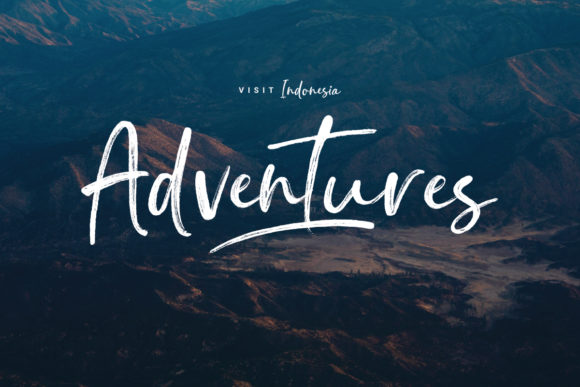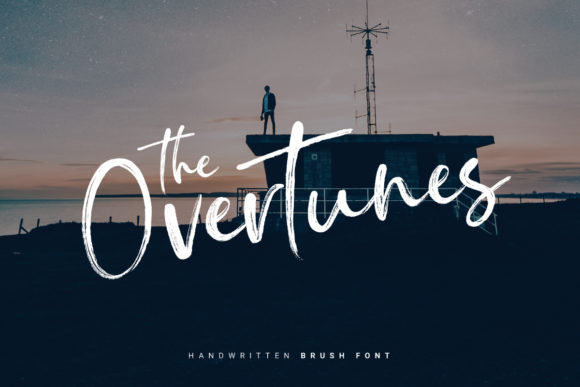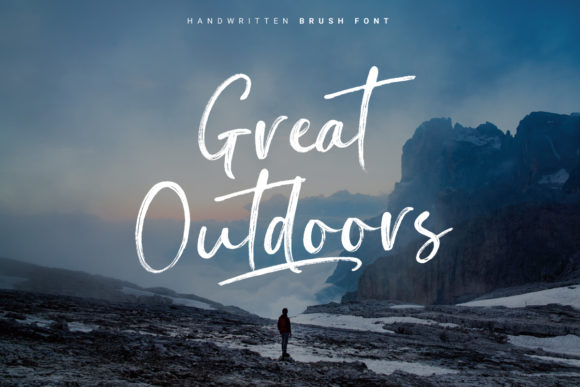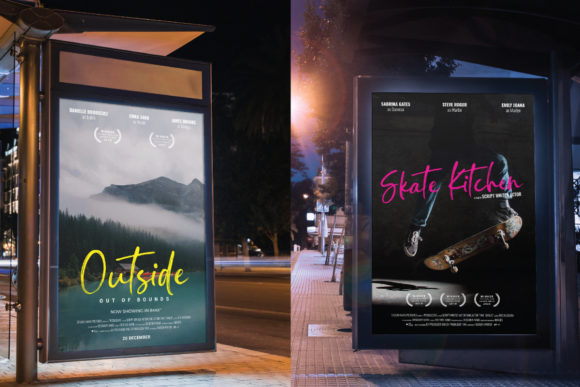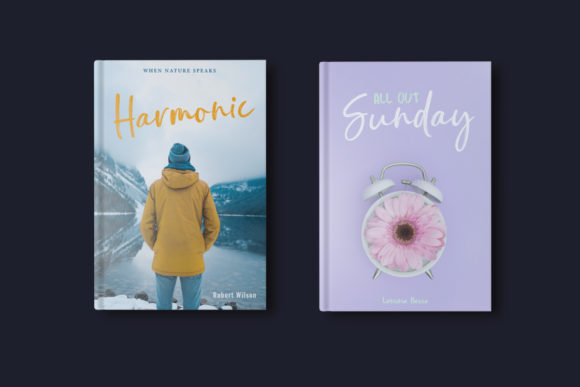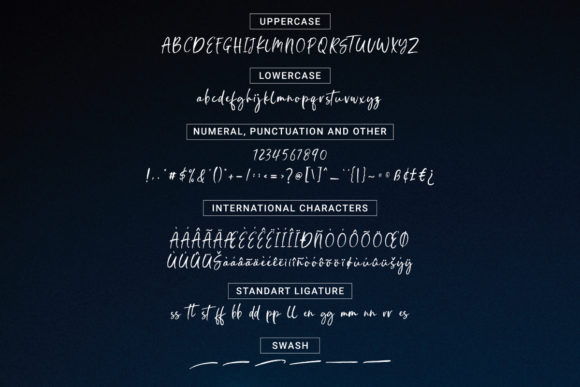
Weird Genius Font
About Weird Genius Font
Weird GeniusĀ is a chic, refined script font that emanates sophistication and elegance. Its stylish alternates and ligatures make this font the perfect match for any project. Weird Genius is PUA encoded which means you can access all of the glyphs and swashes with ease!Ā